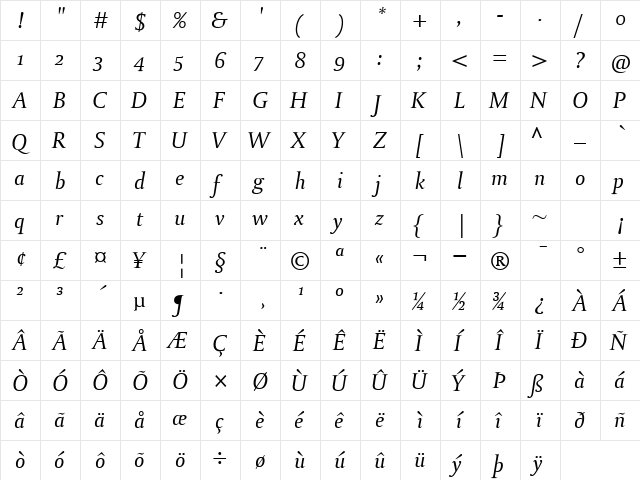
Paradox Dtl St Italic Regular
Design Context for Paradox Dtl St Italic Typeface
Paradox Dtl St Italic offers clean, dependable letterforms without strong stylistic allegiance, making it a practical choice for designers who need flexibility. The dynamic lean of this cut emphasises speed and emphasis in any layout.
Pro Tip: Try Paradox Dtl St Italic for annotation and caption copy alongside an upright companion — the contrast in angle creates a dynamic but ordered typographic system.